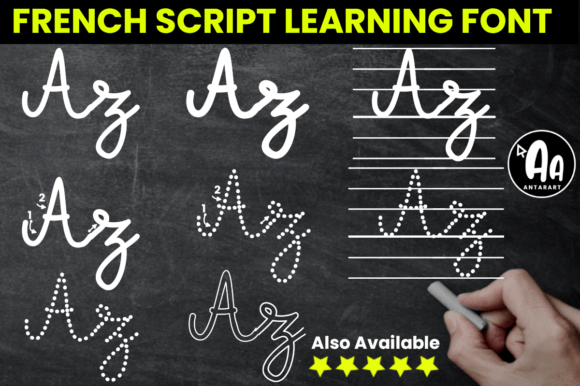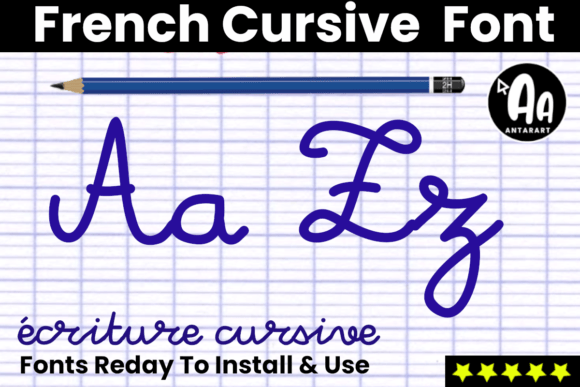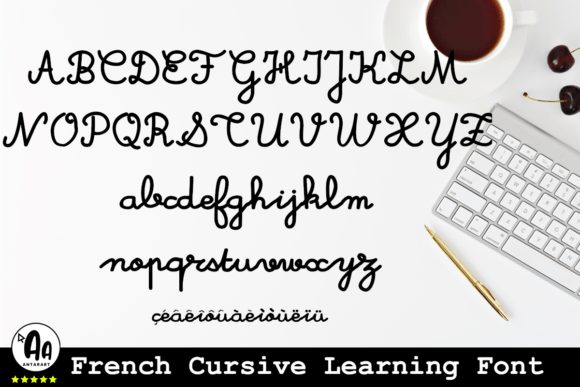
The Joy of French Cursive Font: Bringing Creativity to Handwriting
Do you remember the feeling of picking up a pen and paper, and letting your imagination flow onto the page? For many of us, there’s something special about the tactile experience of handwriting. As a designer, I’ve always been fascinated by the art of lettering, and the French Cursive Font is one of my favorites. This beautiful, flowing script is not just a pretty face – it’s also a valuable tool for designers, educators, and anyone who wants to create engaging and interactive content.
The French Cursive Font is a versatile handwriting font that allows you to create hundreds of worksheets using any software. Whether you’re teaching French Cursive handwriting to students or learning it yourself, this font makes the process enjoyable and interactive. Its beauty lies in its simplicity, making it easy to use and customize to suit your needs.
French Cursive Font Key Features
- Font Type: Script Font, specifically designed to mimic the flowing style of handwritten French cursive.
- Unique Characteristics: Features elegant, connected letterforms and subtle flair at the ends of strokes, giving it a distinctive and elegant appearance.
- Language Support: Supports a wide range of languages, including English, French, Spanish, German, Italian, and many others, making it a versatile choice for multilingual applications.
French Cursive Font Review
I recently had the chance to work with the French Cursive Font, and I must say it’s a beautiful addition to any design project. ✨ Here are a few things that stood out to me:
- The elegant and flowing curves of the font make it perfect for titles and headings.
- The font’s sophistication and refinement evoke a sense of luxury and high-end quality.
- The font is highly legible, even at smaller font sizes, making it suitable for body text as well.
However, as with any font, there are some limitations to consider: ⚠️
- The font’s complexity and ornateness may make it difficult to use in designs where simplicity is key.
- The font’s elegance may be lost on some audiences, particularly those who prefer more modern or minimalist designs.
- The font’s lack of bold and italic weights may limit its versatility in certain design applications.
Overall, I think the French Cursive Font is a great choice for designers looking to add a touch of elegance and sophistication to their projects. While it may not be the best fit for every design, it’s definitely worth considering for the right project.
The French Cursive Font is ideal for:
- Creating decorative text for wedding invitations or party invitations.
- Adding a touch of elegance to business cards or letterheads.
- Designing educational materials, such as workbooks or textbooks.
Alternatives to French Cursive Font for Designers
Lobster is a casual, cursive font that is perfect for creative projects, such as invitations, posters, and social media graphics. It has a friendly, approachable feel that is ideal for conveying a sense of playfulness and fun. Compared to French Cursive Font, Lobster has a more relaxed, handwritten feel that is less formal.
Pacifico is a beautiful, elegant font that is suitable for a wide range of projects, from wedding invitations to branding and advertising materials. It has a soft, flowing feel that is reminiscent of classic cursive fonts like French Cursive Font, but with a more modern twist. Pacifico is a great choice when you want to convey sophistication and refinement.
Great Vibes is a modern, cursive font that is perfect for creating a sense of energy and excitement. It has a dynamic, expressive feel that is ideal for projects like music festivals, sporting events, and other high-energy activities. Compared to French Cursive Font, Great Vibes is more stylized and less formal, making it a great choice for projects that need to convey a sense of movement and action.